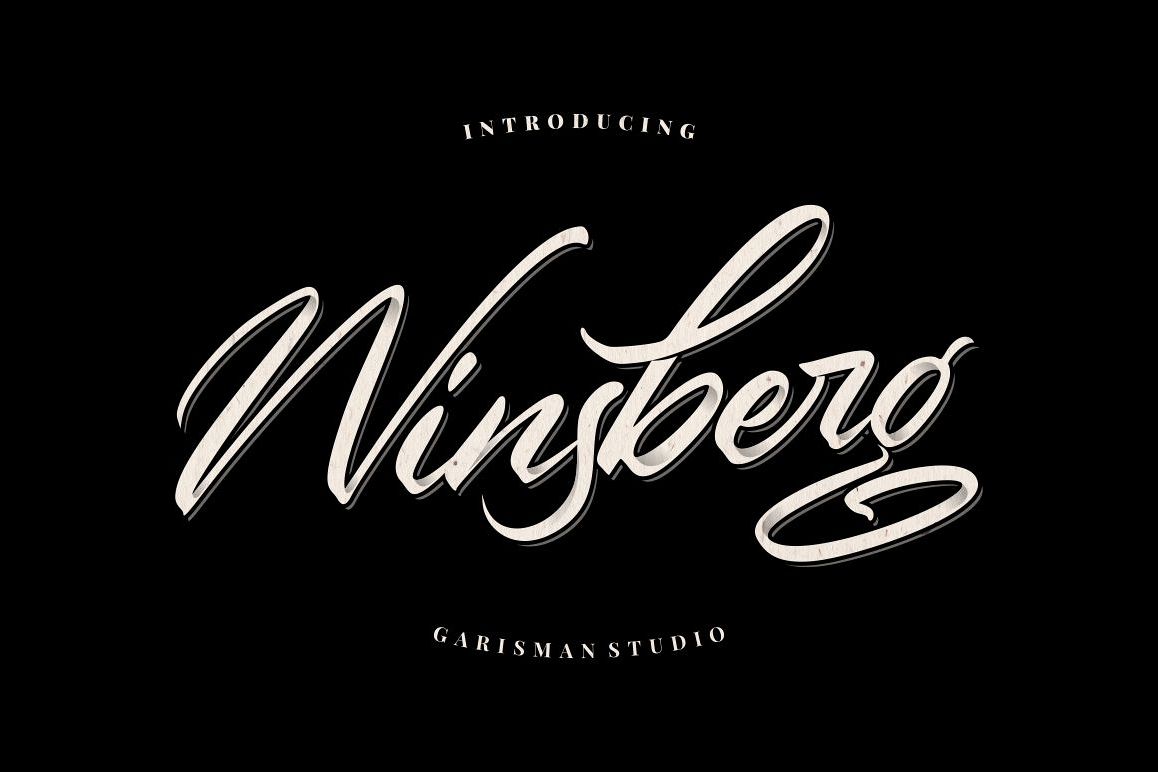
Winsberg
Winsberg is made natural handwritten with the ending swashes on Stylistic Set 01. With the unique Opentype in it and the ligature will add aesthetic value to your design product.
Versatile for poster, logotype, labels, book cover